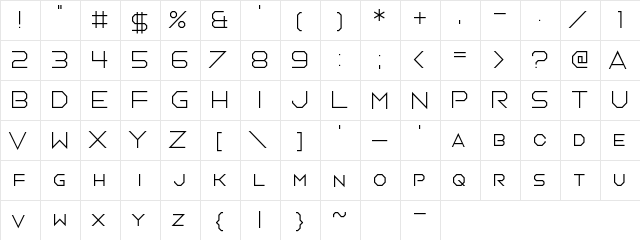
Orchestra of Strings Regular
| Designer | NAL |
Design Context for Orchestra of Strings Typeface
Orchestra of Strings takes a measured approach to typography — its balanced proportions and neutral character make it a reliable workhorse for both digital and print work.